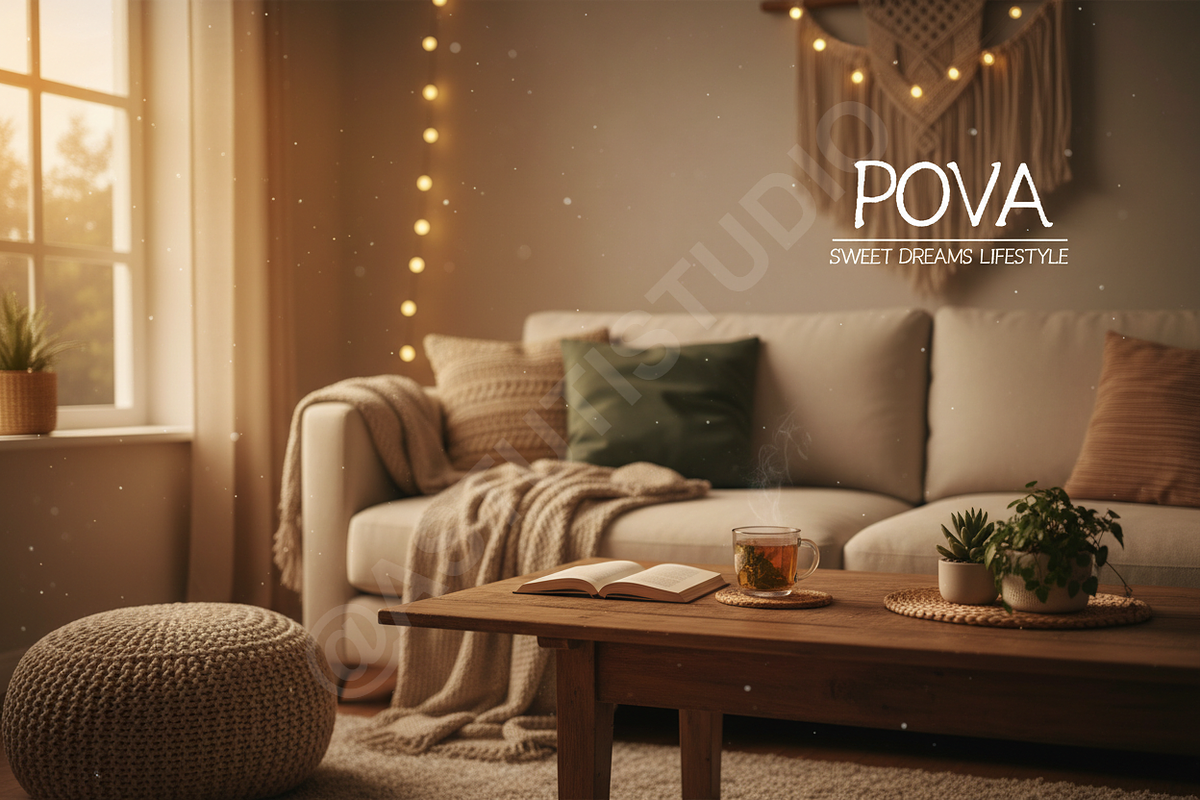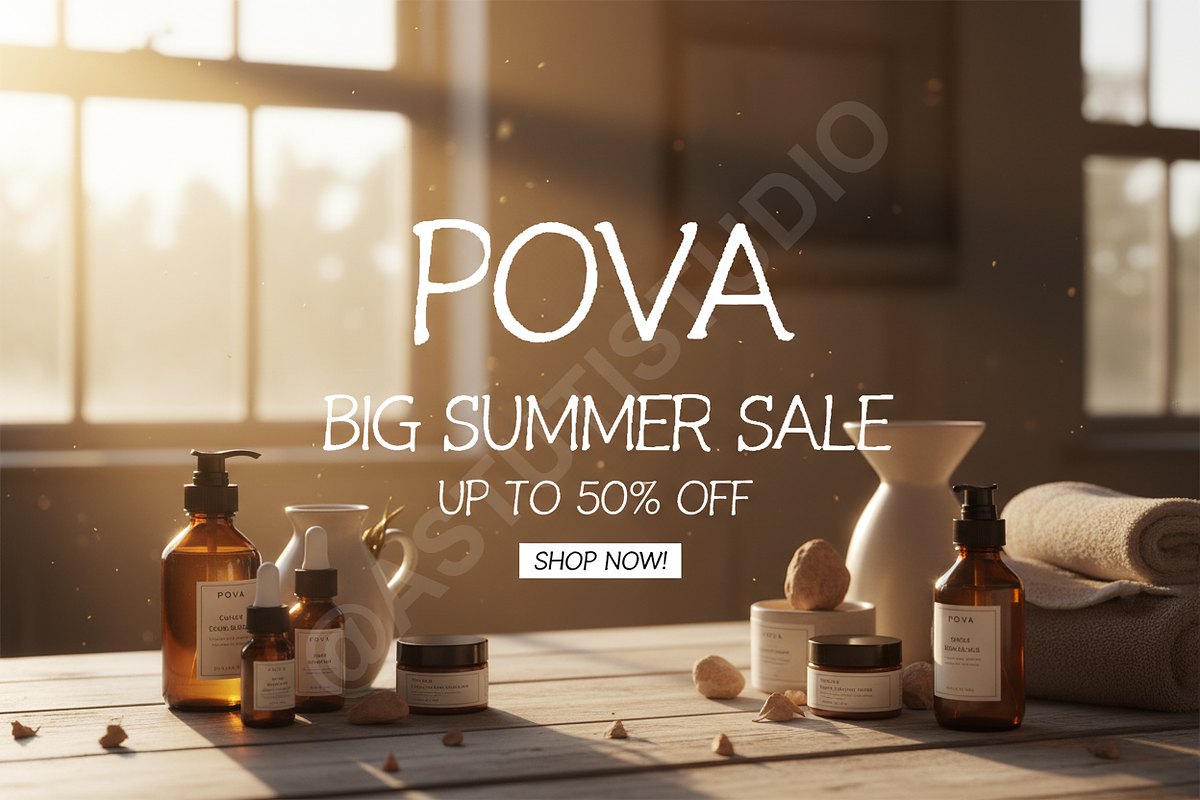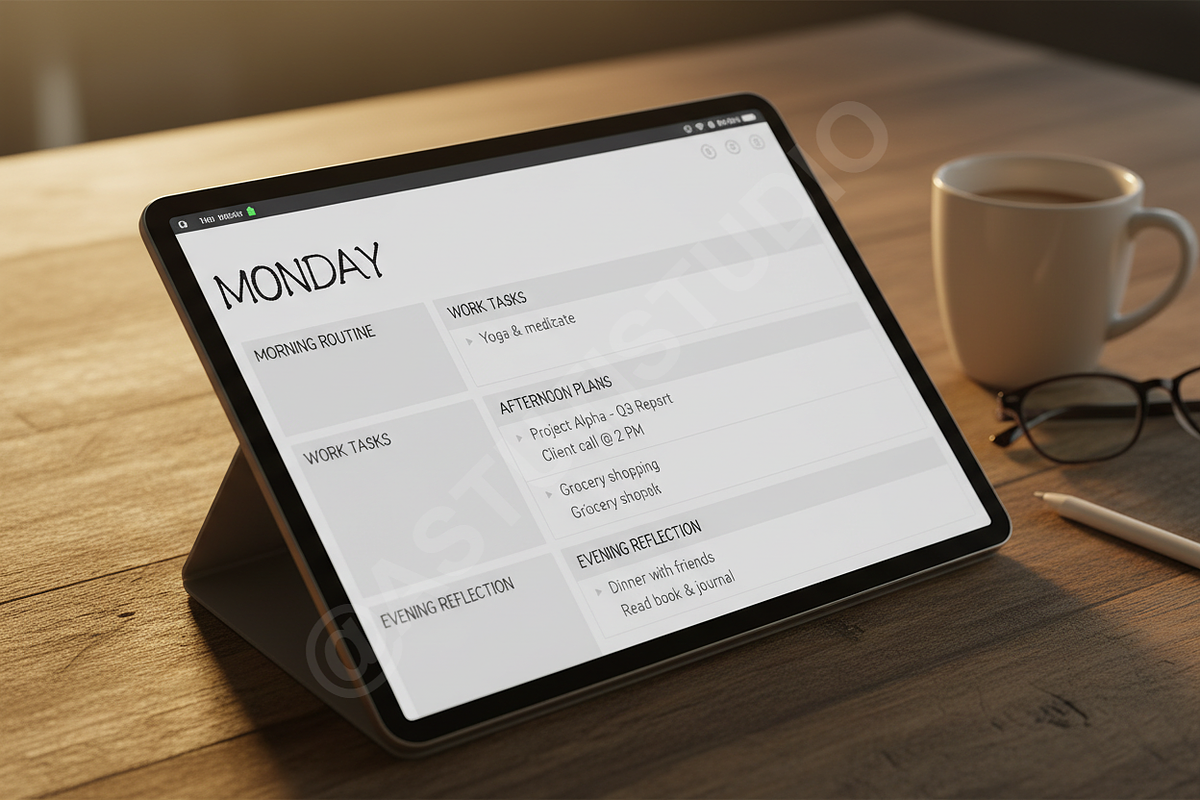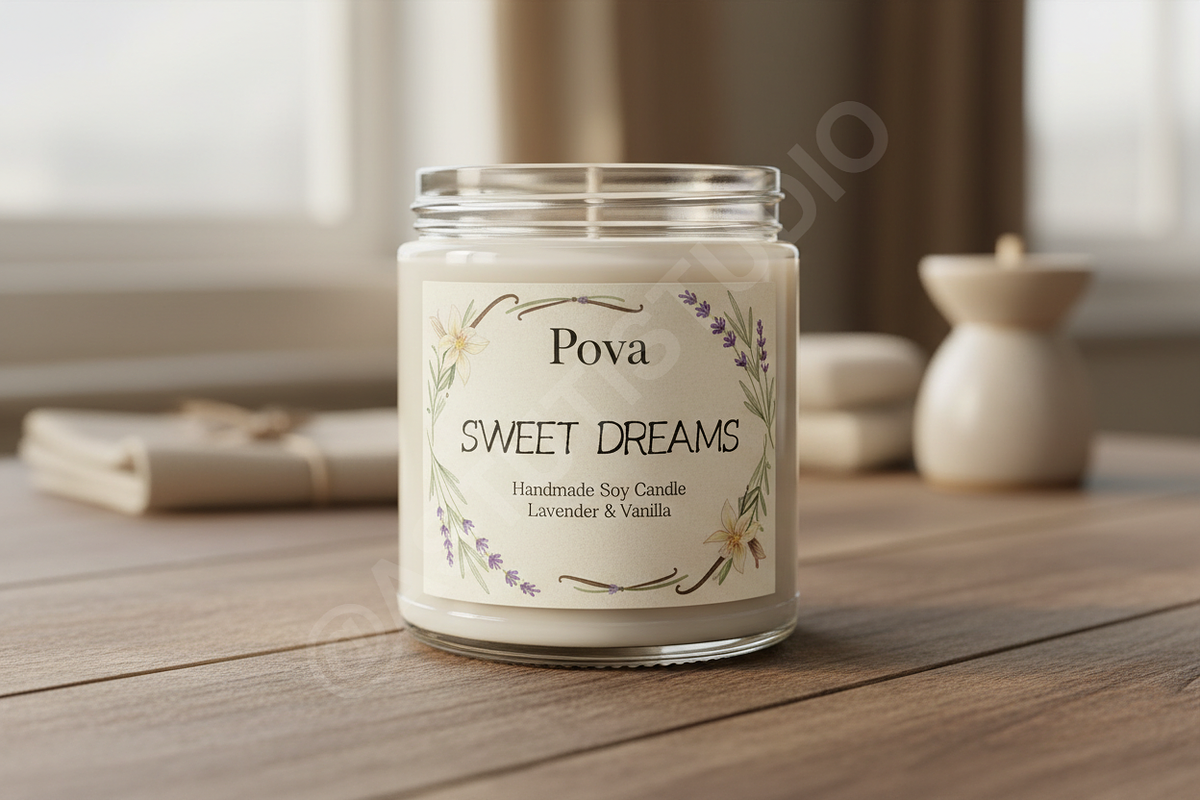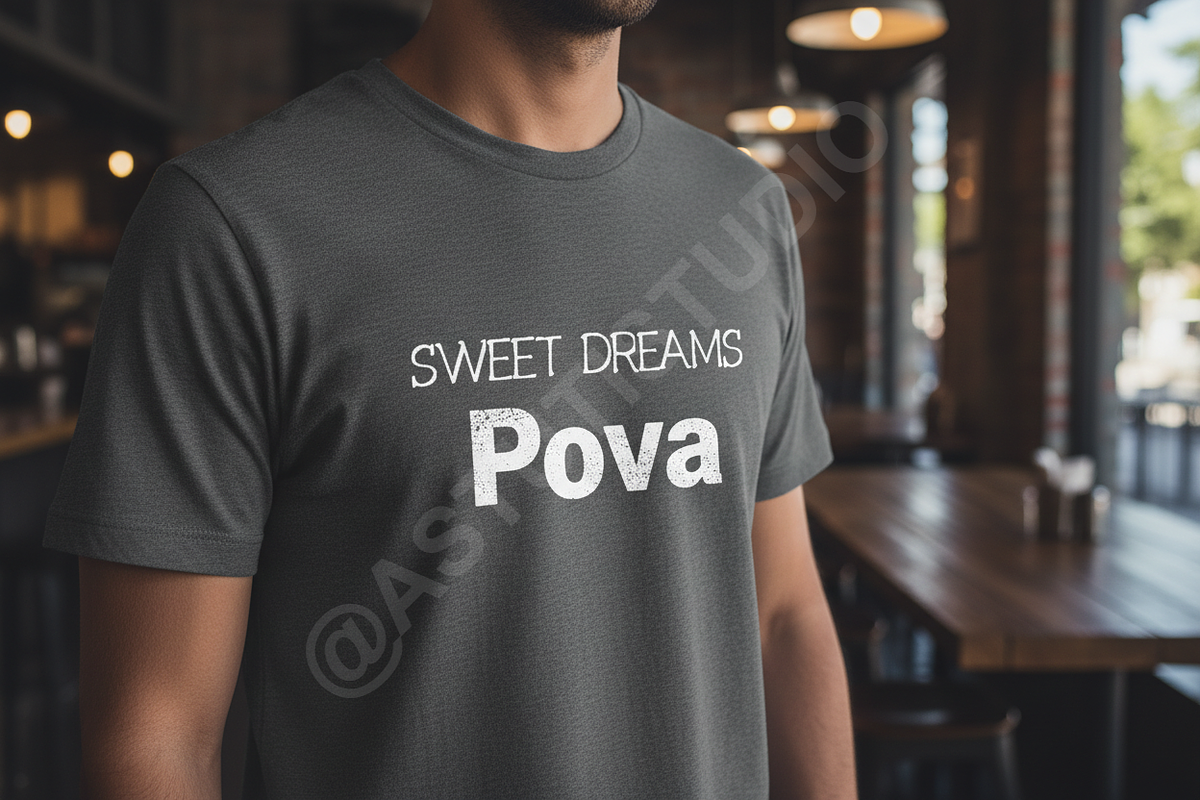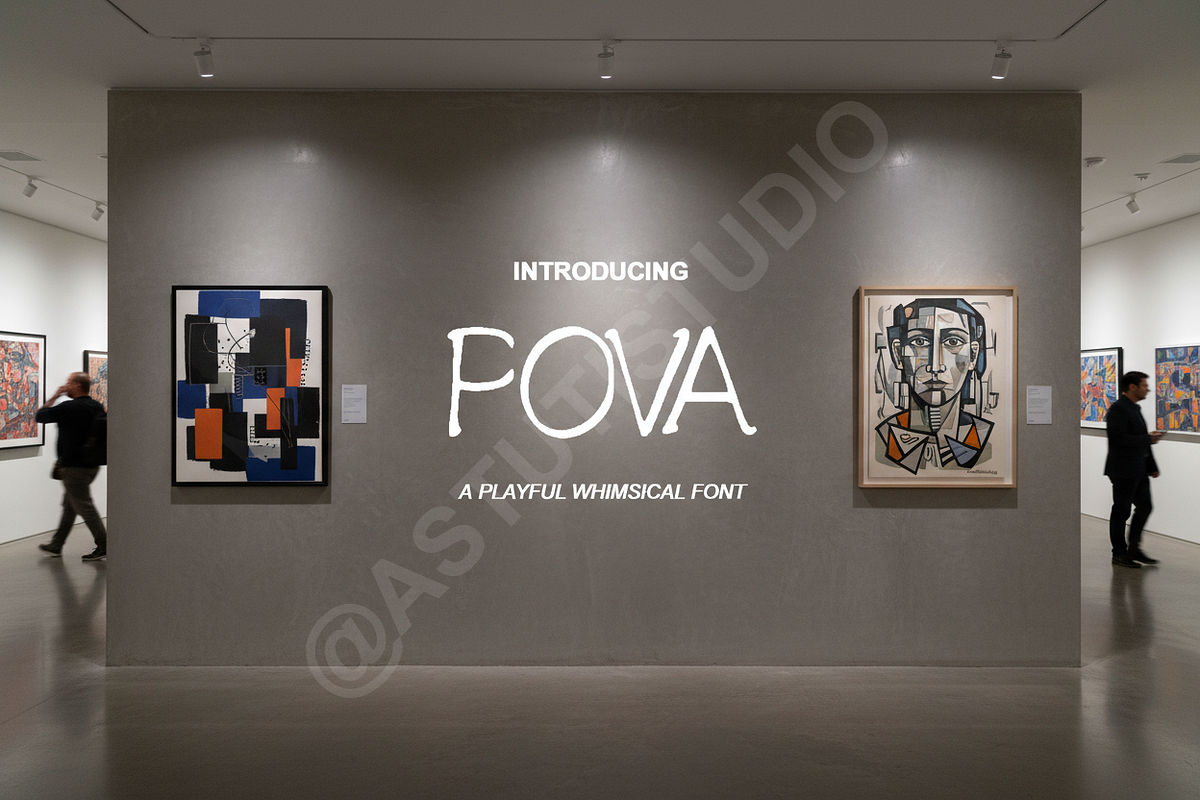
Pova | Elegant Modern Serif Typefac
Pova: A Modern Serif for Timeless Elegance
Elevate your creative projects with Pova, a sophisticated serif typeface meticulously crafted for high-end aesthetics. Balancing classic proportions with contemporary details, Pova is designed to bring a sense of luxury and refinement to any layout. Whether you are working on premium branding, editorial design, or high-impact social media content, this font provides the versatility and poise your work deserves.
- High-contrast letterforms for a professional finish
- Clean, balanced kerning for optimal readability
- Comprehensive multilingual support
- Elegant ligatures and alternative characters
- Optimized for both display and body text